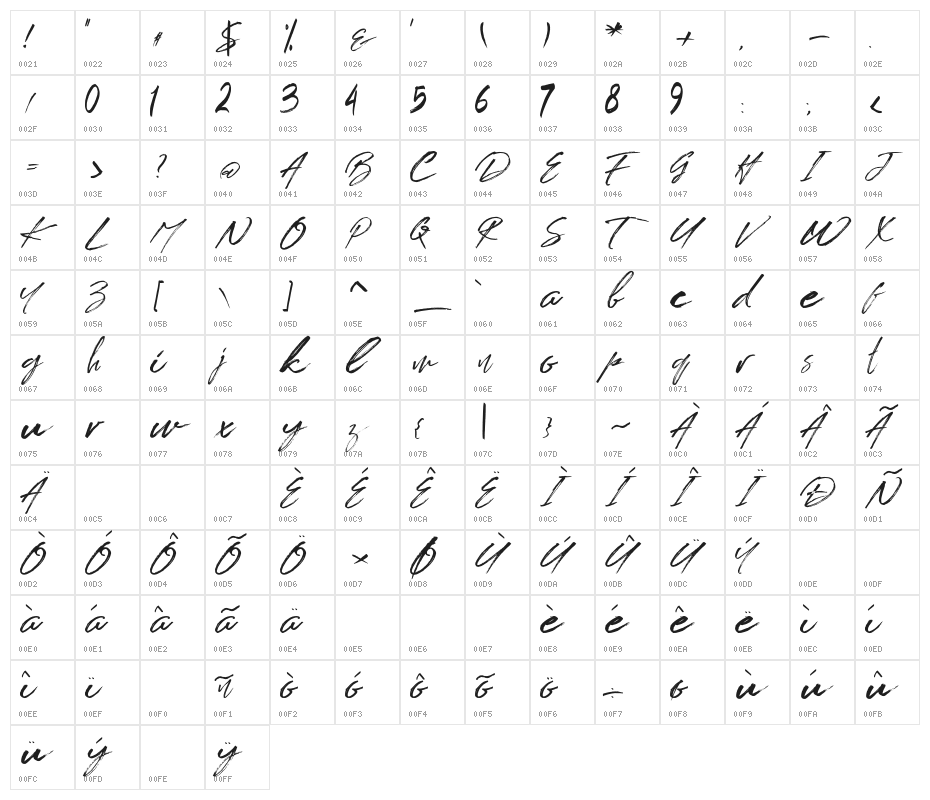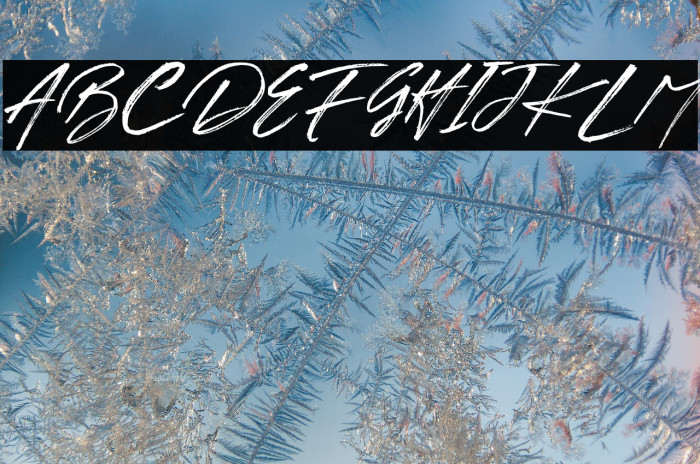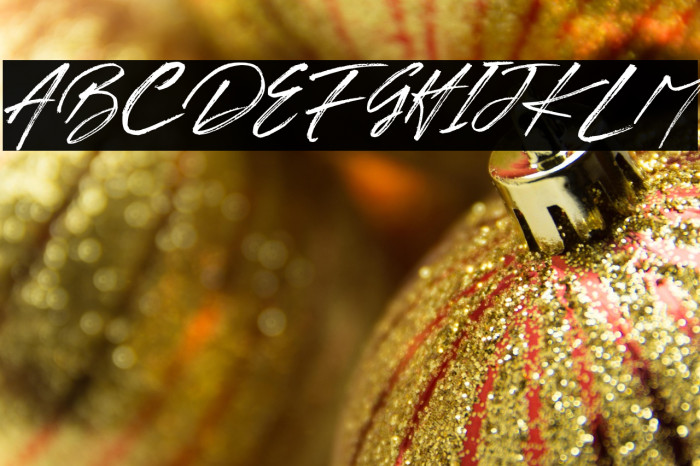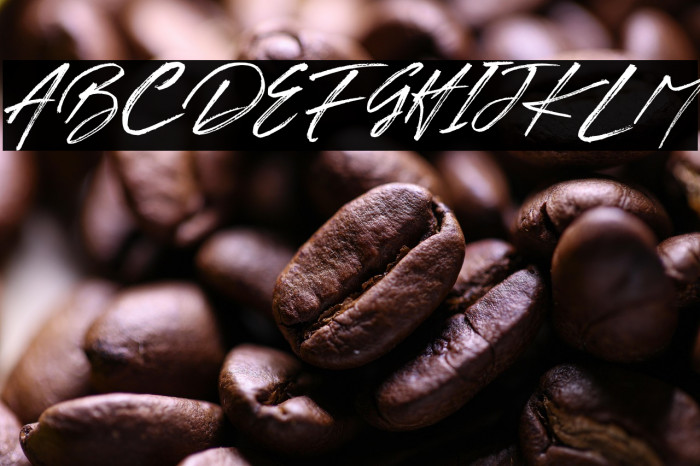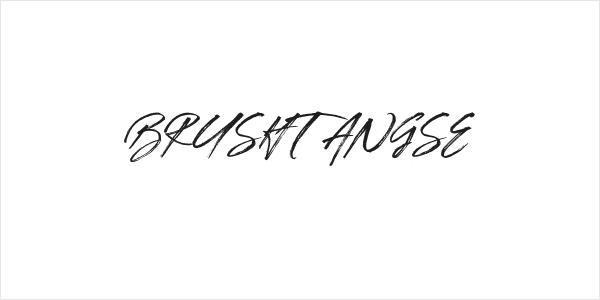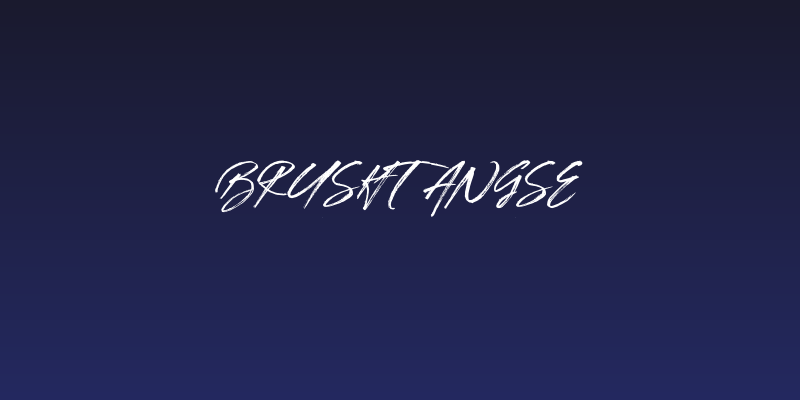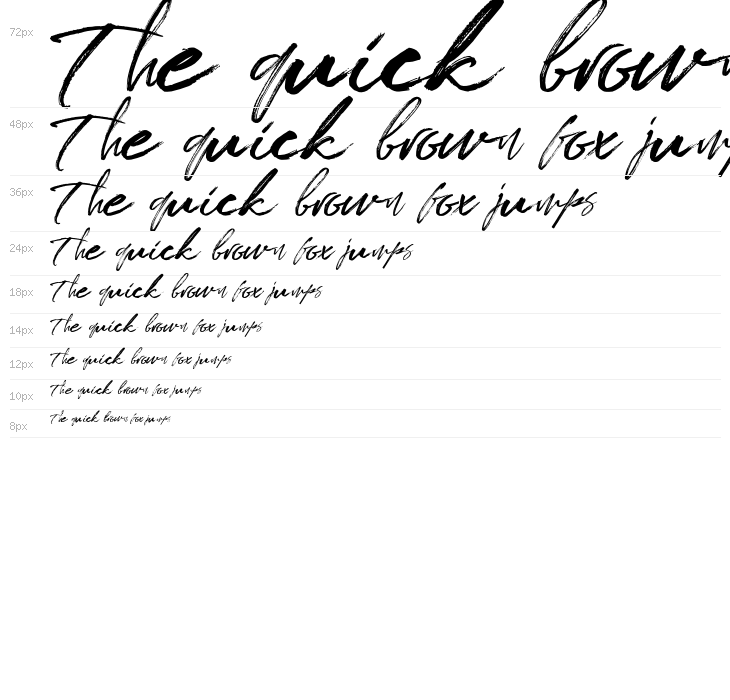
BRUSHTANGSE Font
This font exudes a dynamic and expressive style, characterized by its brush-like strokes that convey a sense of movement and energy. The uppercase and lowercase letters are crafted with a fluid, handwritten quality, giving it a personal and artistic touch. The numbers and special characters maintain this expressive style, ensuring consistency across all elements. The strokes vary in thickness, adding a natural and organic feel to the text. This font is ideal for projects that require a bold and artistic statement, such as branding, posters, or creative invitations.
Use CaseLogos, Headlines, Artistic projects
Proposed ProjectsIdeal for branding, posters, creative invitations, and artistic projects.